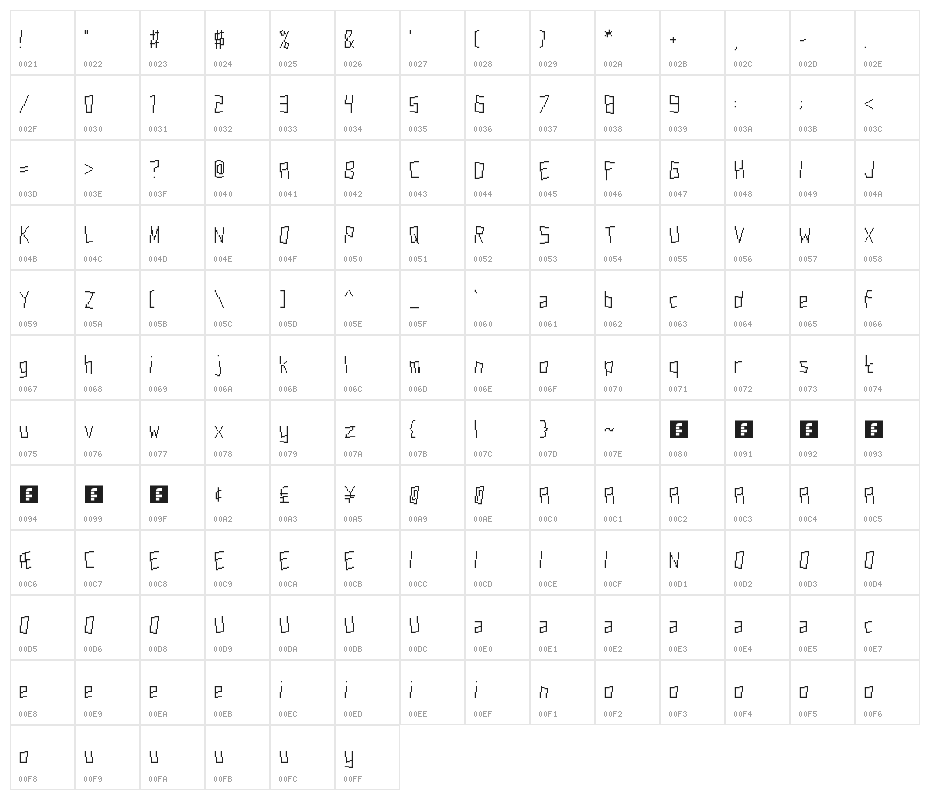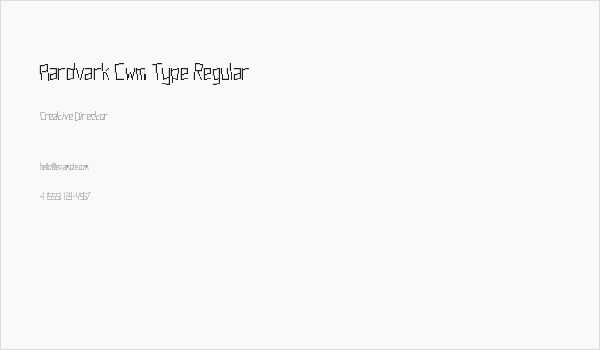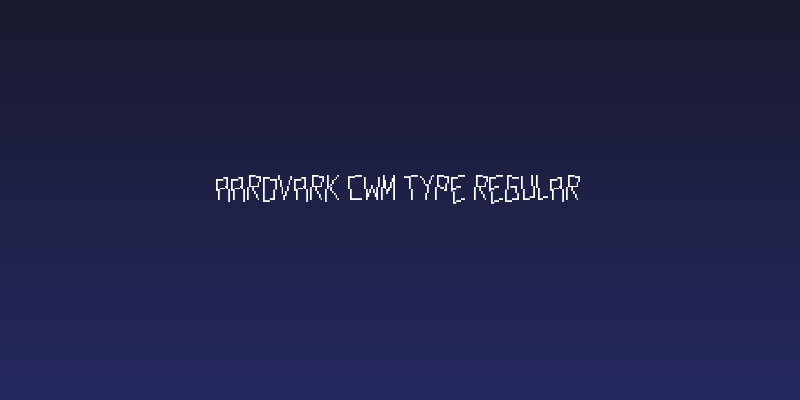
Aardvark Cwm Type Regular Font
Aardvark Cwm Type Regular Description
This font features a pixelated, grid-like design reminiscent of early digital displays or retro video games. The characters are composed of small square blocks, giving them a distinct, geometric appearance. The uppercase and lowercase letters maintain a consistent style, with sharp angles and uniform line thickness. Numbers and special characters follow the same pixelated pattern, ensuring a cohesive look across all glyphs. The overall aesthetic is playful and nostalgic, making it ideal for projects that aim to evoke a sense of vintage digital technology.
| Use Case | Logos, Headlines, Digital Art |
| Proposed Projects | Ideal for retro video game designs, digital art projects, or any creative work that seeks to capture a vintage tech vibe. |